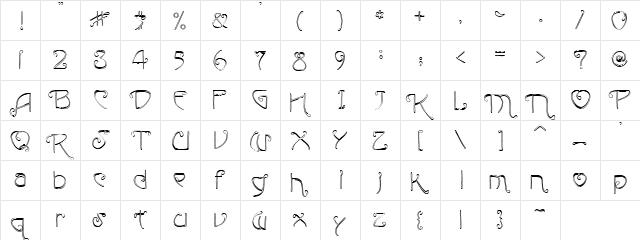
PC QT Outline Regular
Design Context for PC QT Outline Typeface
PC QT Outline brings ornamental detail and strong personality to headlines and identities, where visual impact matters more than quiet functionality.
Font Pairing: Pair with a clean neutral sans-serif for body copy to let PC QT Outline's character lead without overwhelming the composition.
Pro Tip: Use PC QT Outline exclusively at display sizes — it was designed to be seen, not read at length. Let a neutral companion handle body copy.